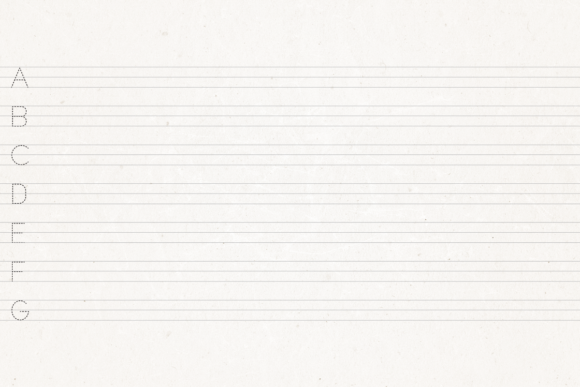
Introduction to Letter Tracer Font
The Letter Tracer font is the perfect tool for making your own alphabet tracing sheets, notebooks and more.
Create perfectly sized letters with perfectly positioned lines Ideal when you are creating workbooks or general letter practice sheets.
Key Features of Letter Tracer Font